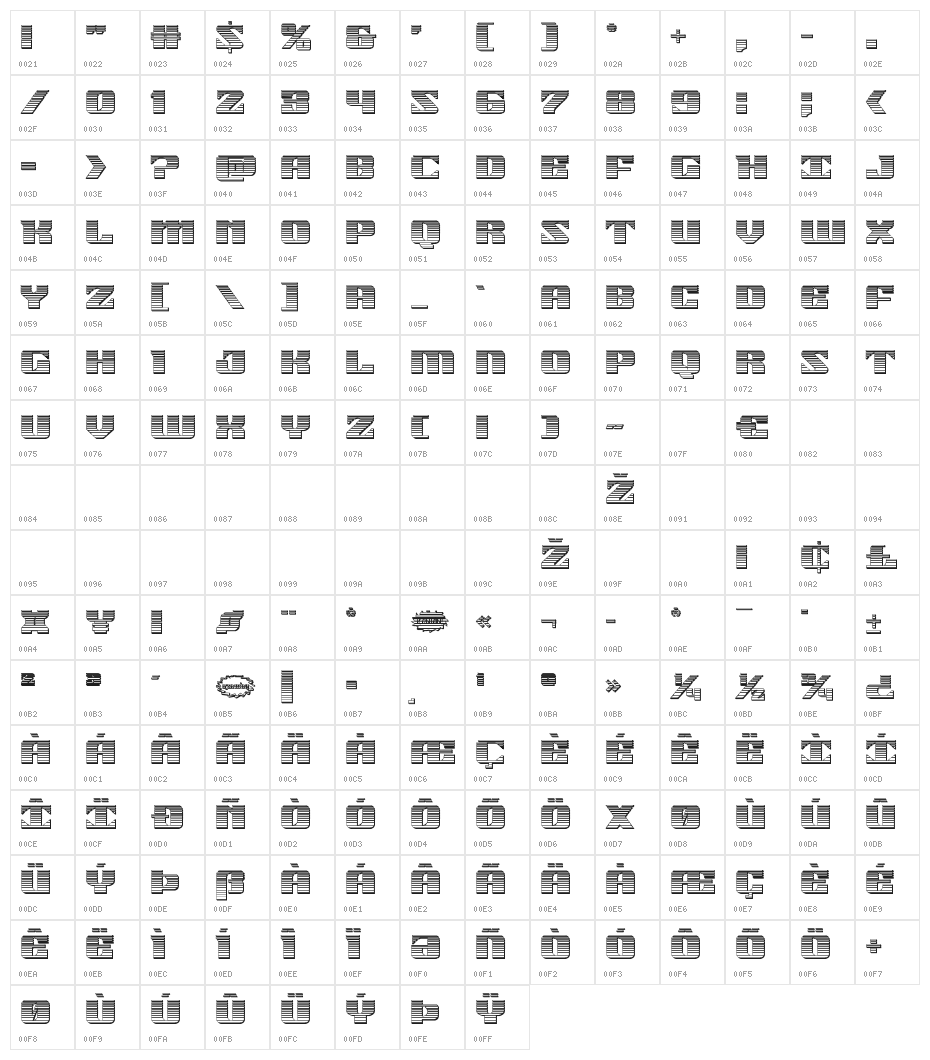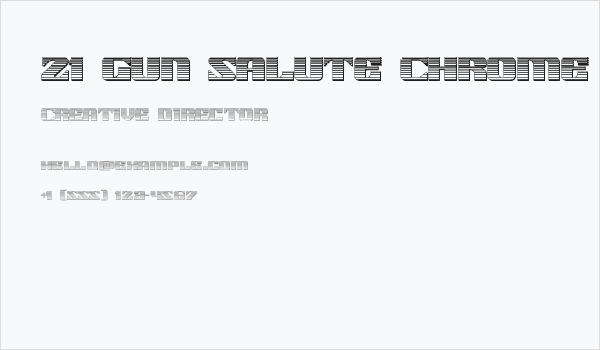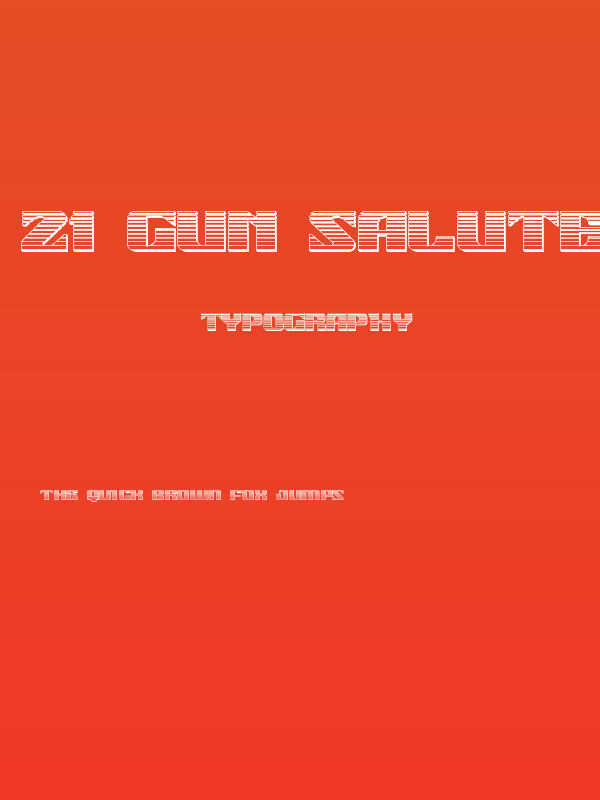
21 Gun Salute Chrome Font
21 Gun Salute Chrome Description
This font features a bold, futuristic design with a distinct striped pattern running horizontally through each character. The uppercase letters are blocky and geometric, giving a sense of strength and modernity. The lowercase letters maintain the same style, ensuring consistency across the typeface. Numbers and special characters are designed with the same bold, striped aesthetic, making them stand out. The overall look is highly decorative, suitable for projects needing a strong visual impact.
| Proposed Projects | Ideal for use in sci-fi themed designs, video game titles, posters, and branding that requires a modern, eye-catching typeface. |